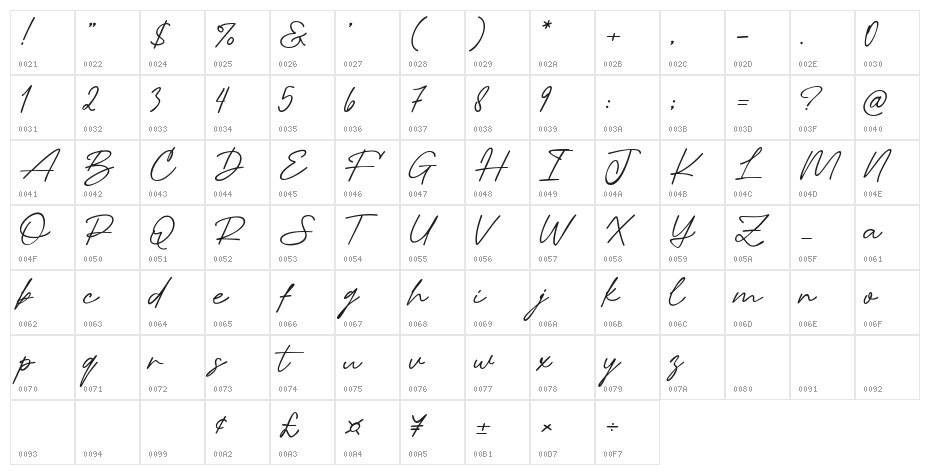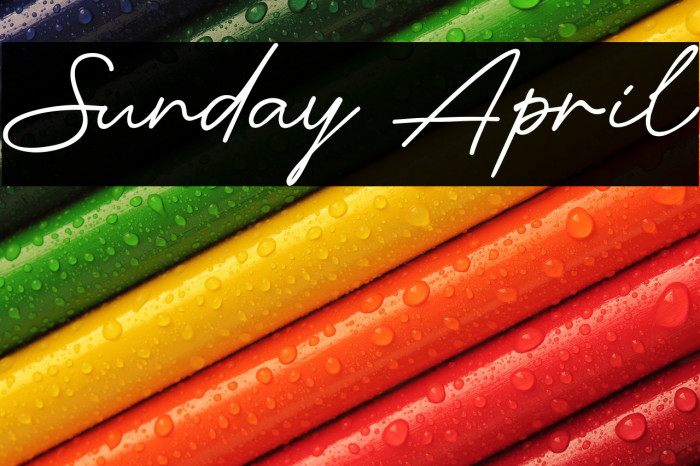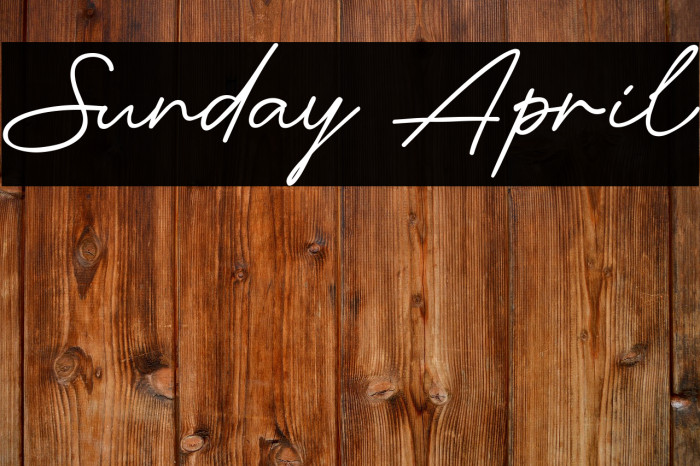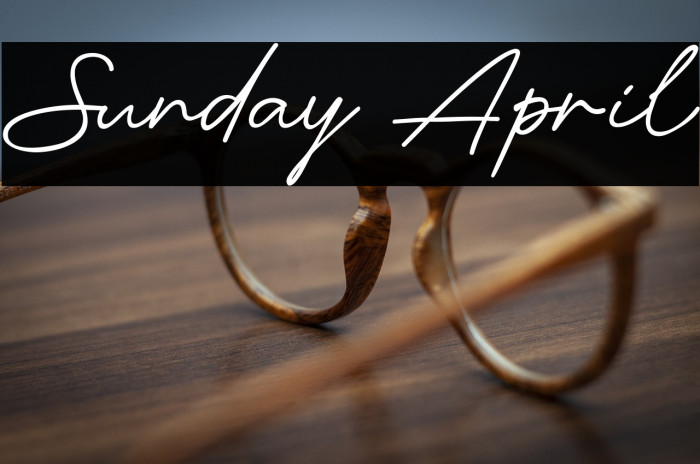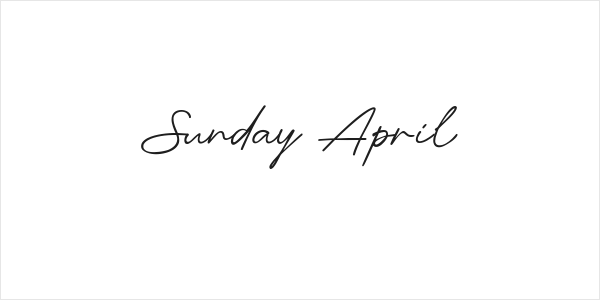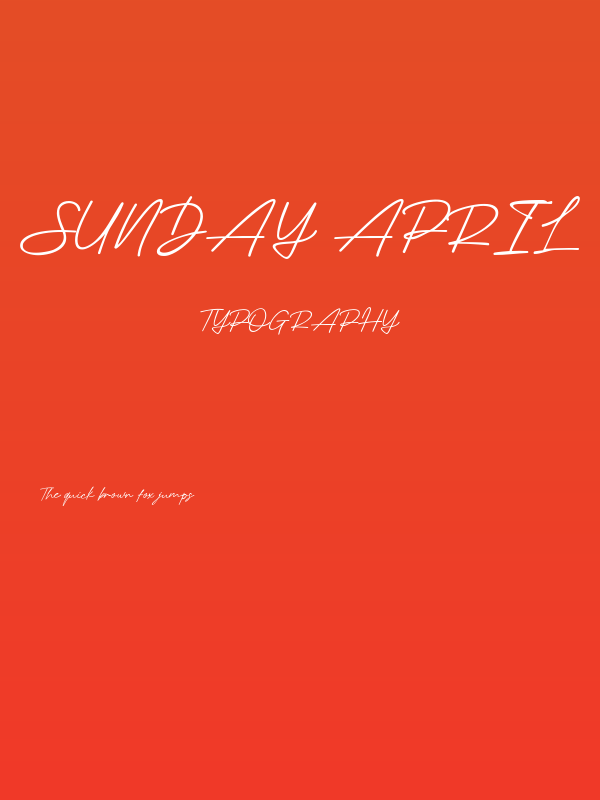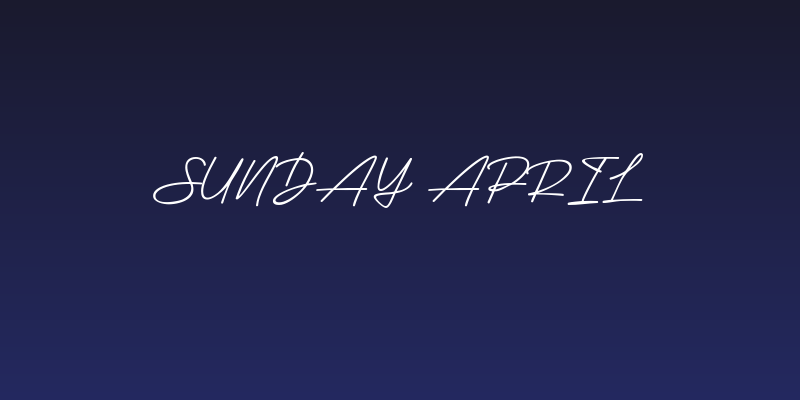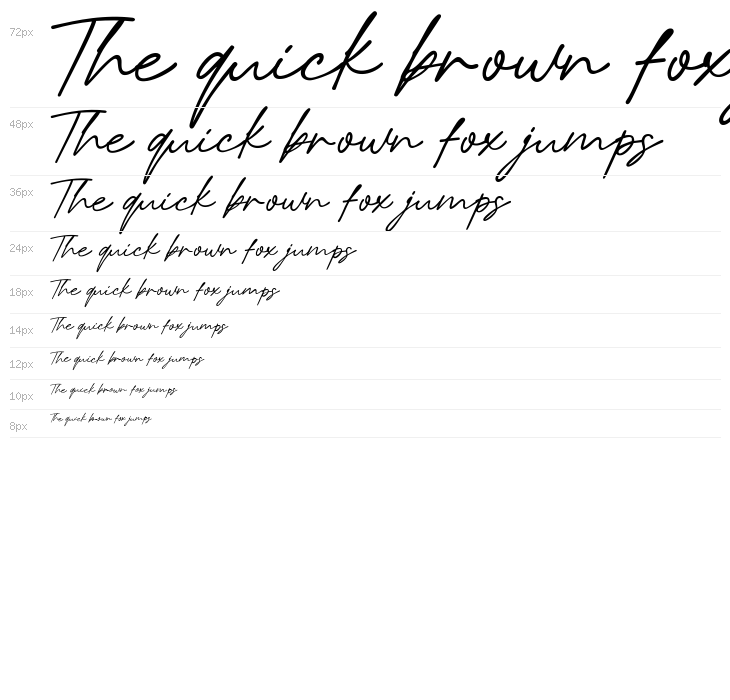
Sunday April Font
Sunday April Description
This font features a flowing, cursive style that mimics elegant handwriting. The uppercase letters are slightly more formal, with a graceful slant and smooth curves, while the lowercase letters maintain a consistent, fluid motion. The numerals and special characters are designed to complement the script, maintaining the same slanted, connected style. The overall appearance is sophisticated and artistic, making it suitable for projects that require a personal touch.
| Overall Style | Elegant, Artistic |
| Use Case | Logos, Invitations, Personal Branding |
| Proposed Projects | Ideal for wedding invitations, greeting cards, personal branding, and elegant stationery. |